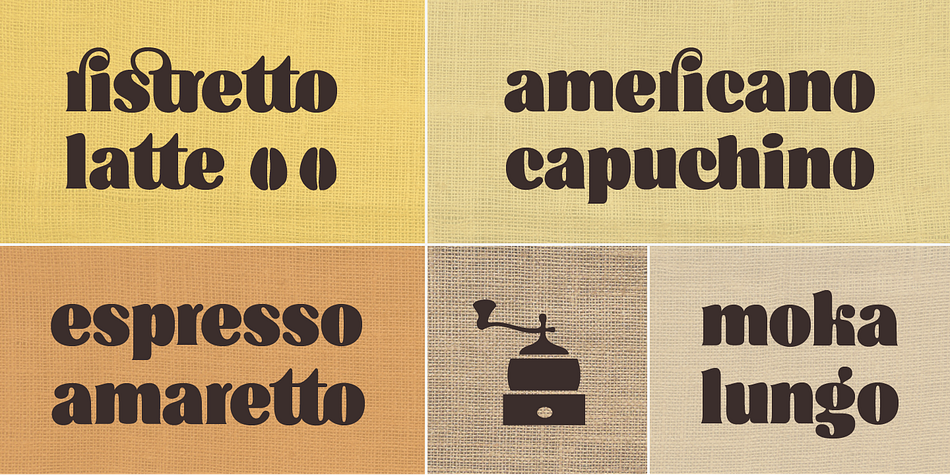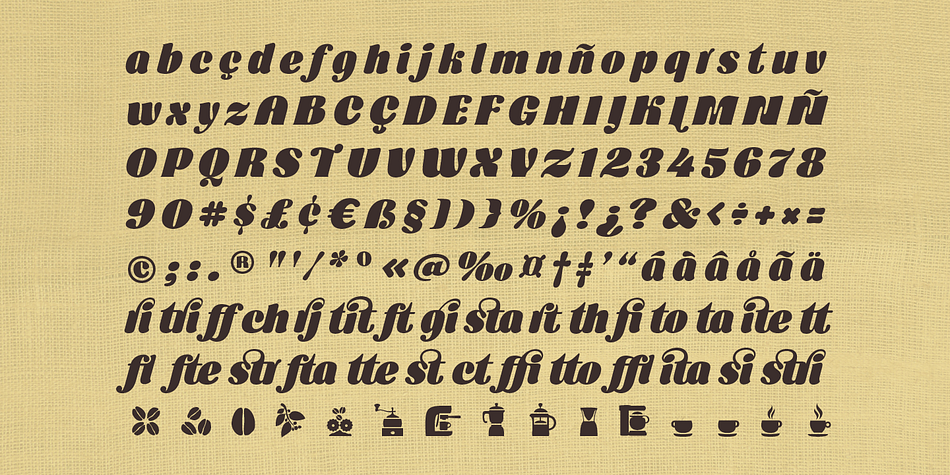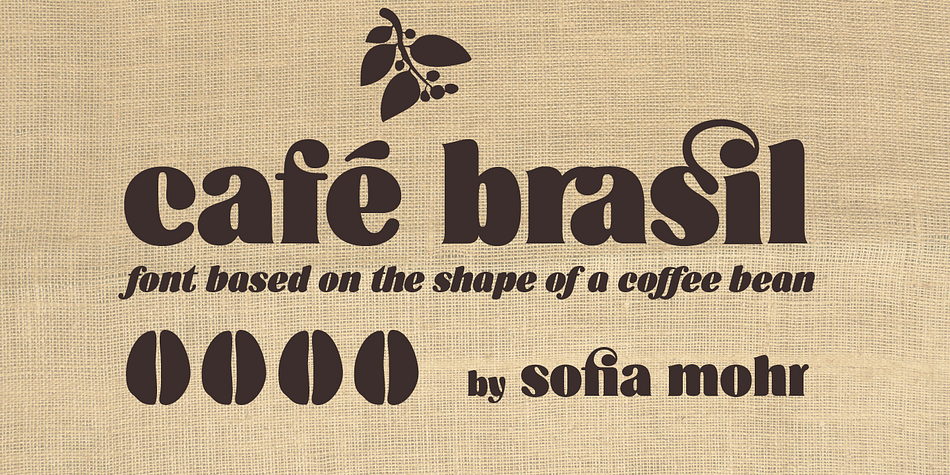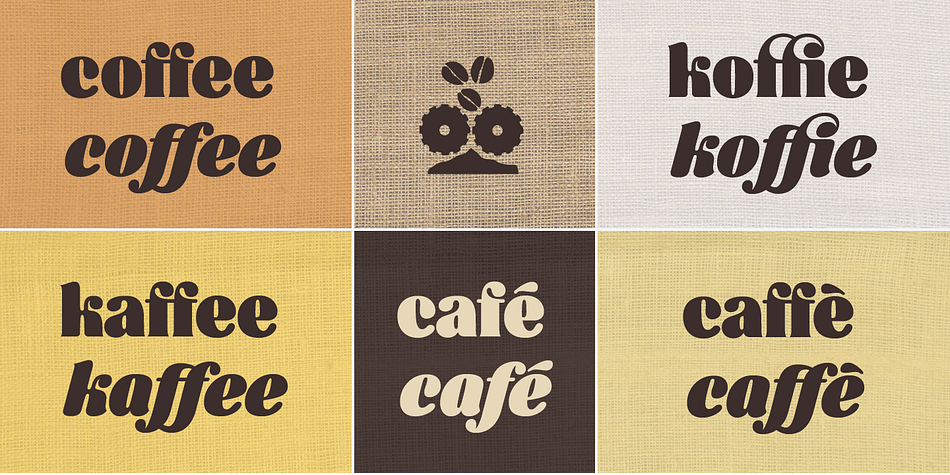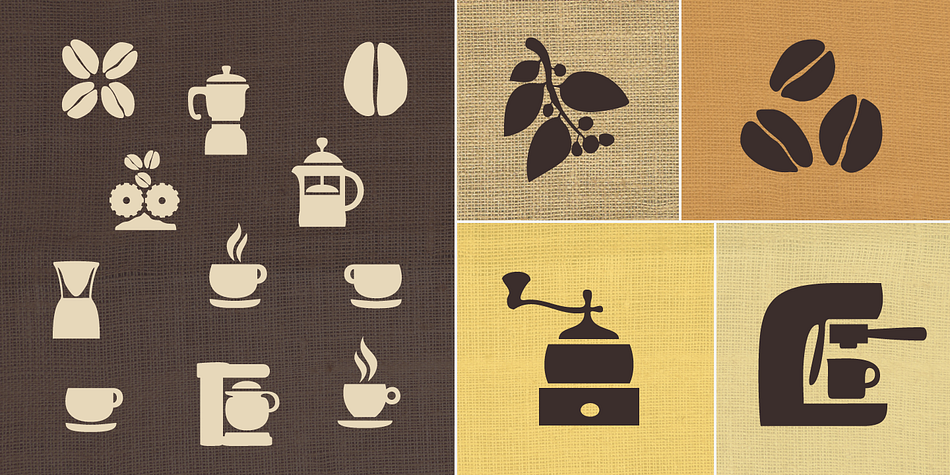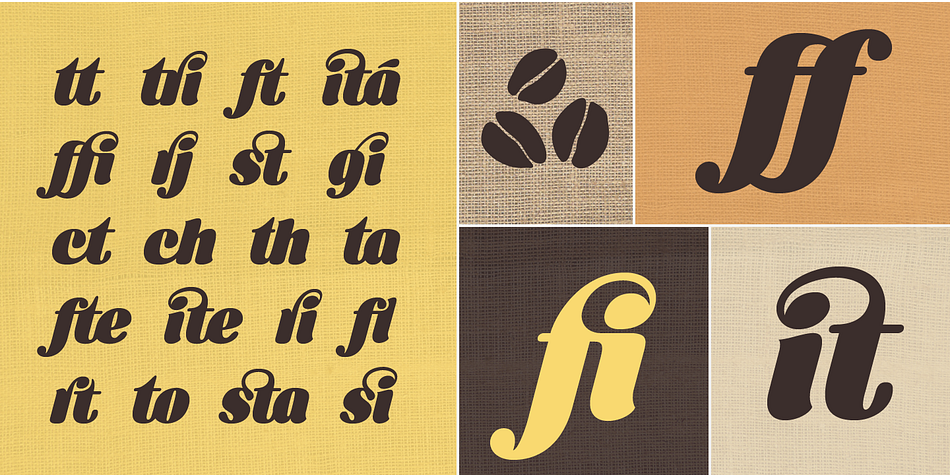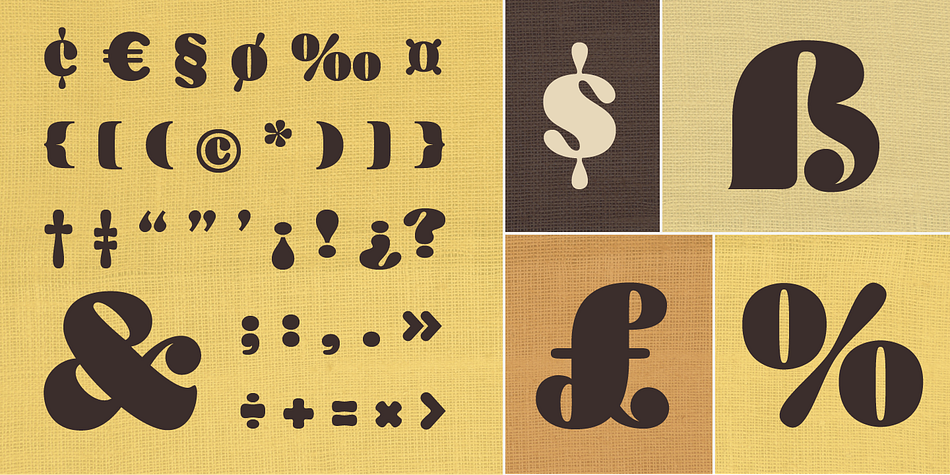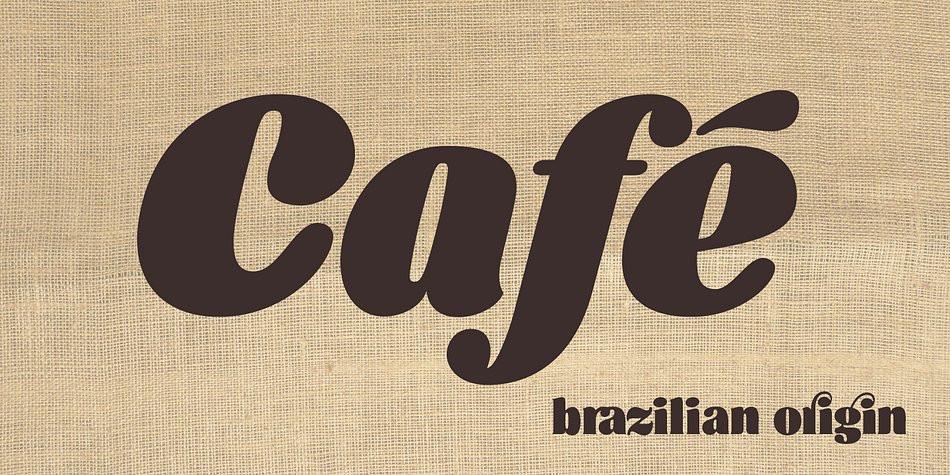
Cafe Brasil is a brush display font family. This typeface has two styles and was published by Sofia Mohr.
Café Brasil is a font designed to represent coffee, especially for use in packaging, brand titles, logos and menus. Based on the shape of a coffee bean, Café Brasil has delicate details and ligatures that represent the liquid, foam and steam of a good cup of coffee.
In March 2014, Café Brasil was chosen to be part of the main exhibition at the “Tipos Latinos 2014”.